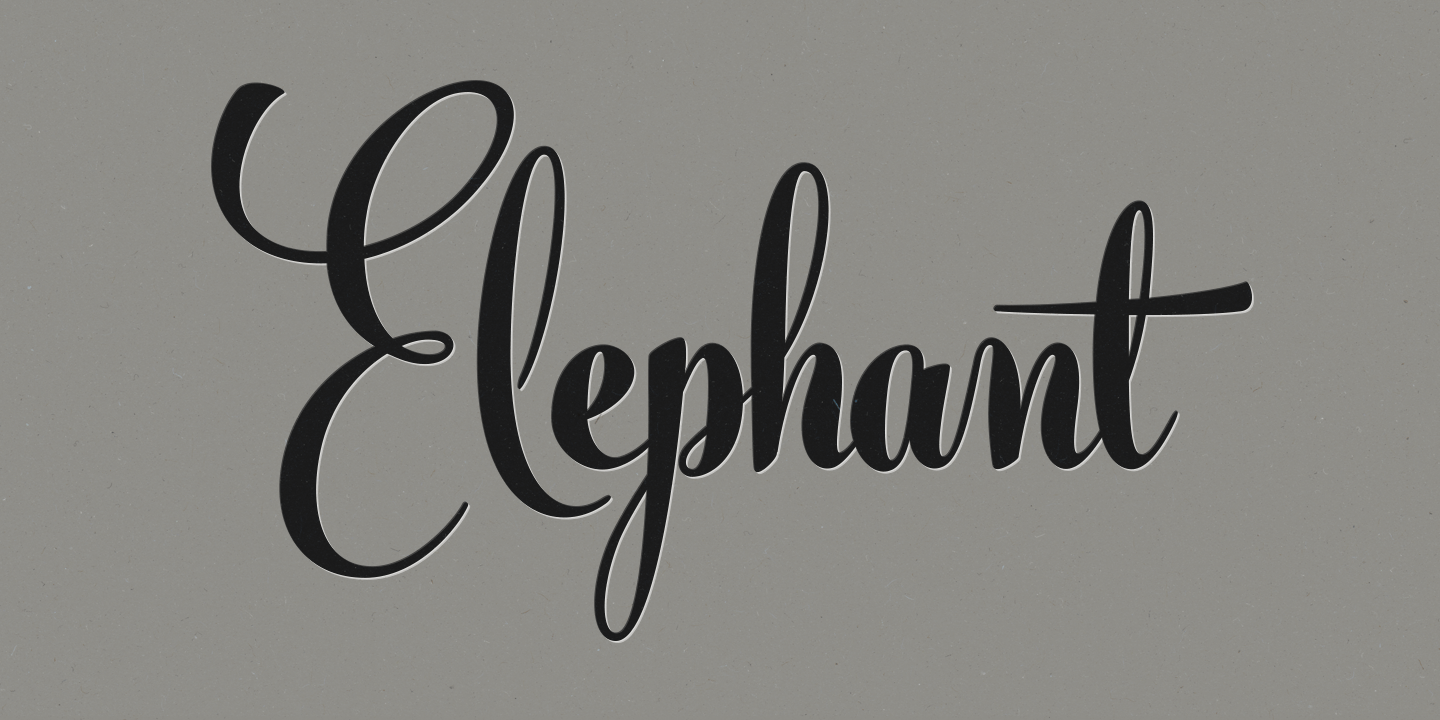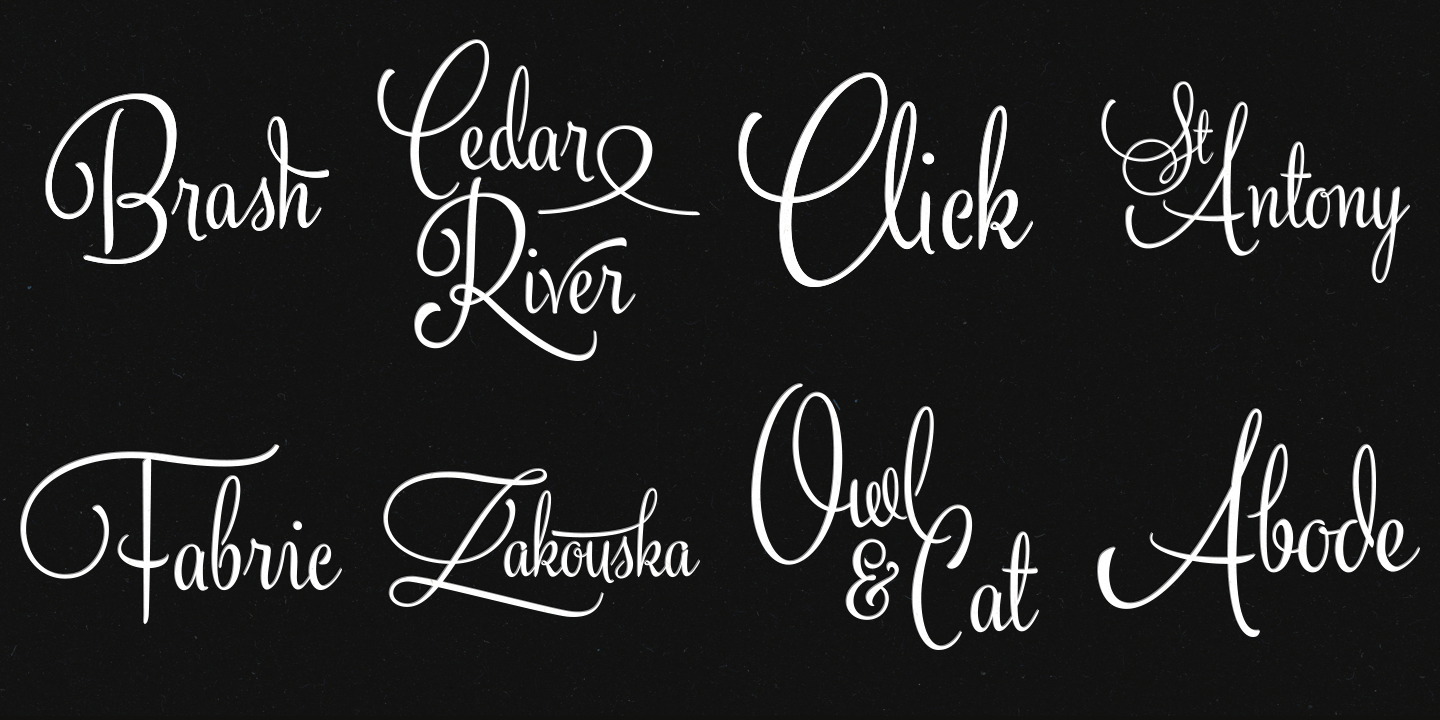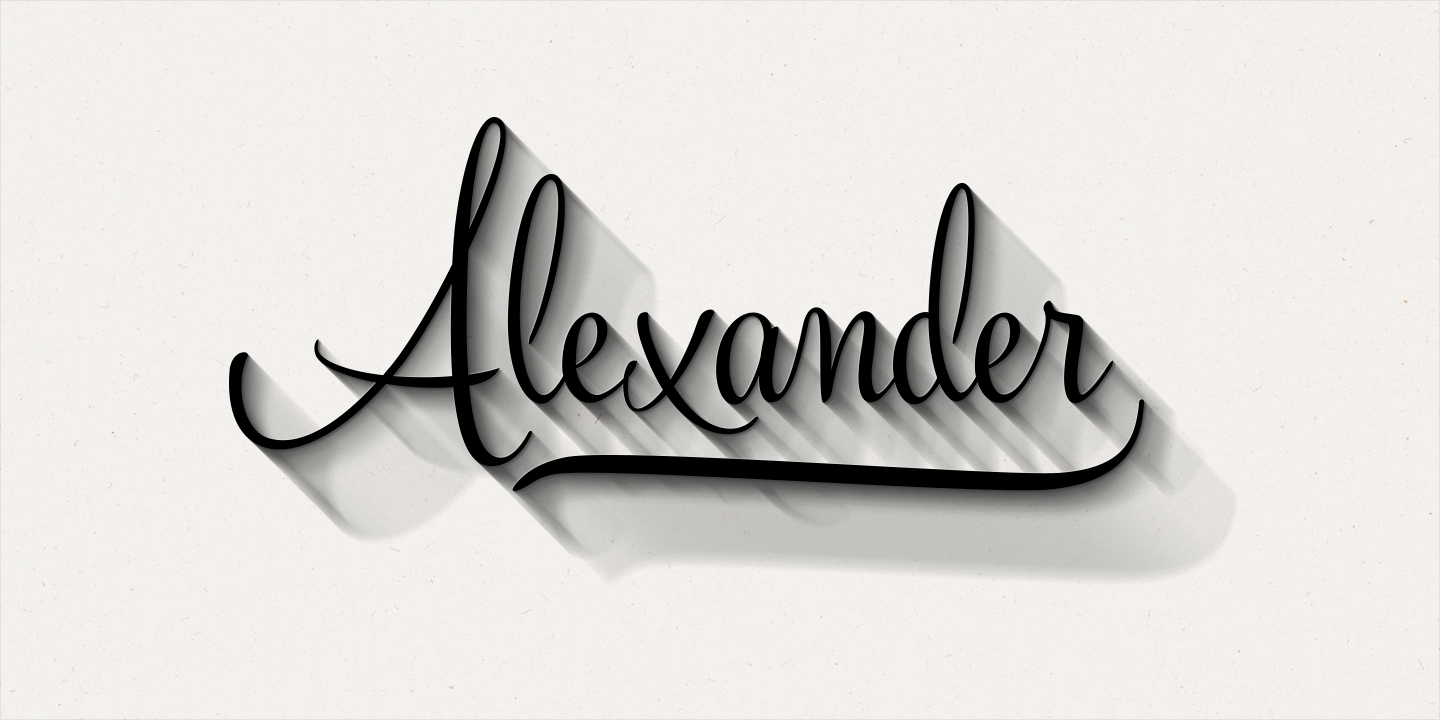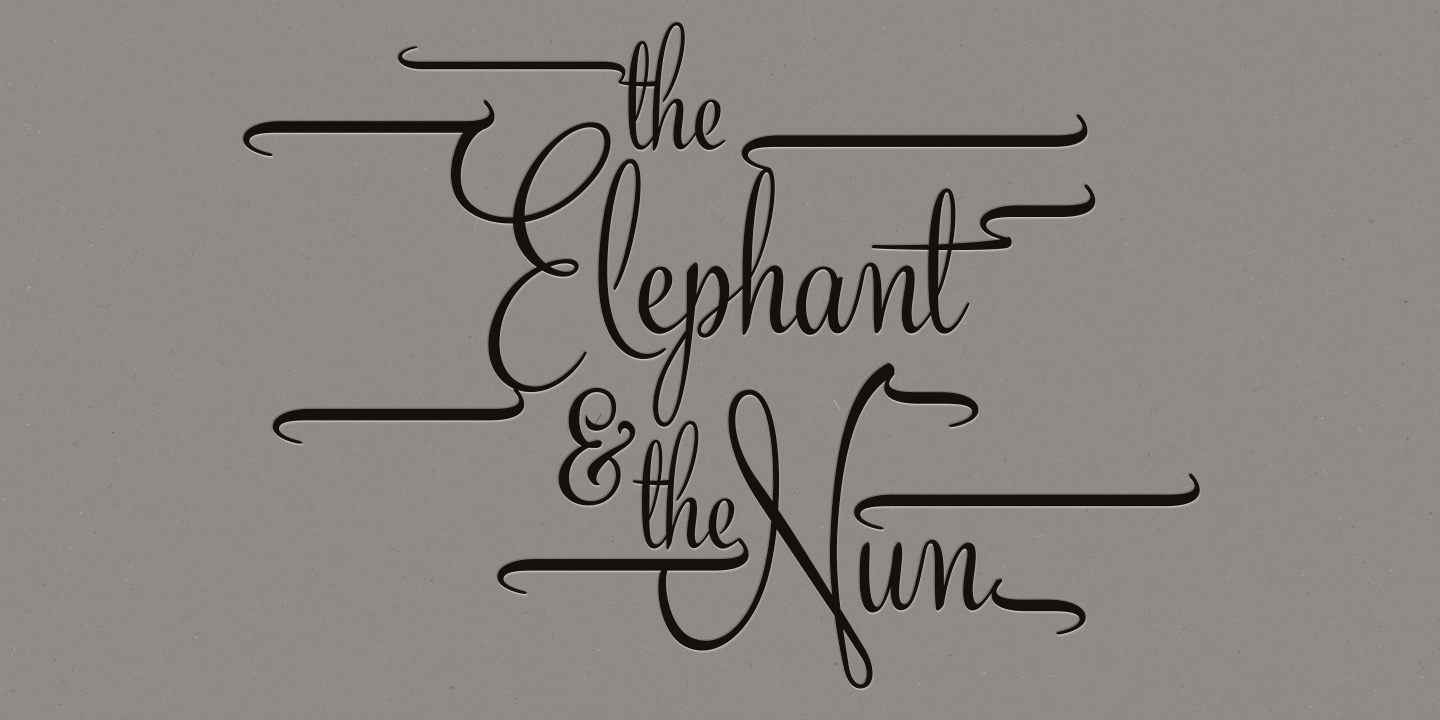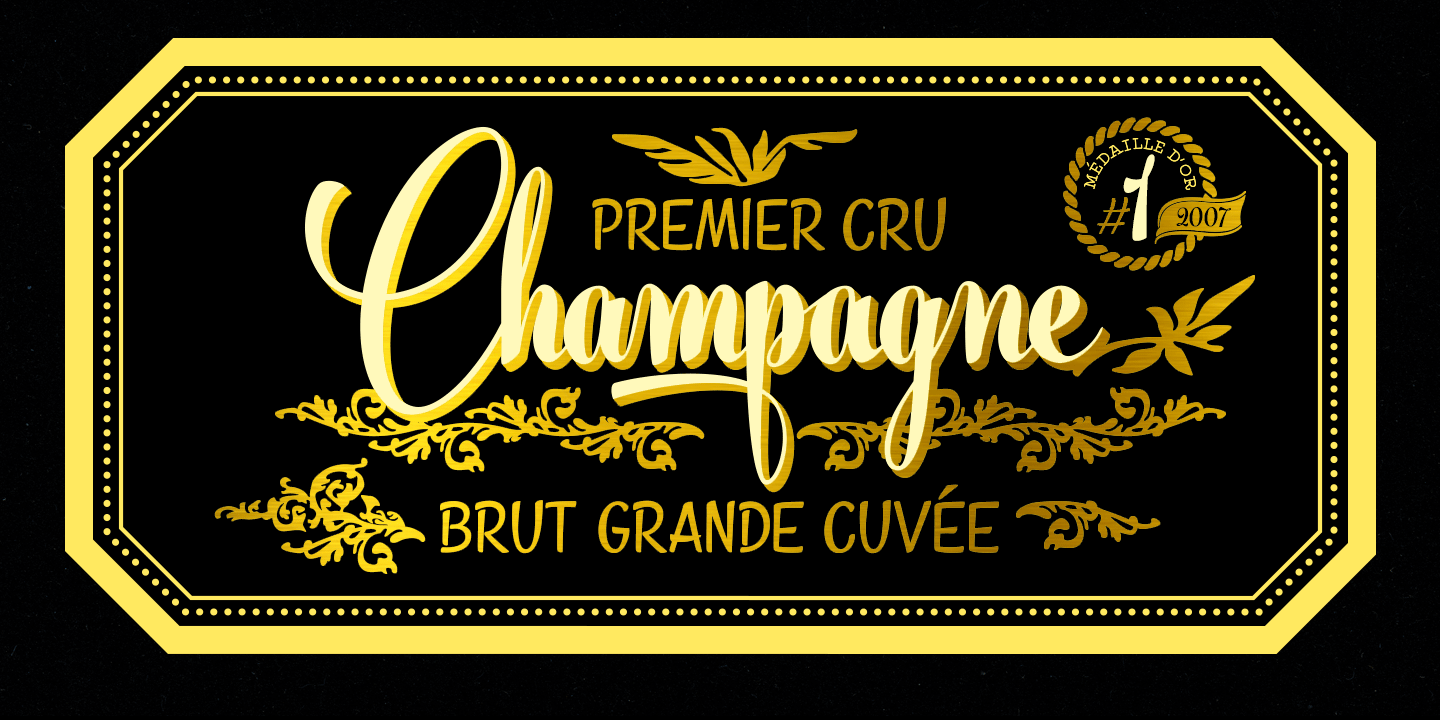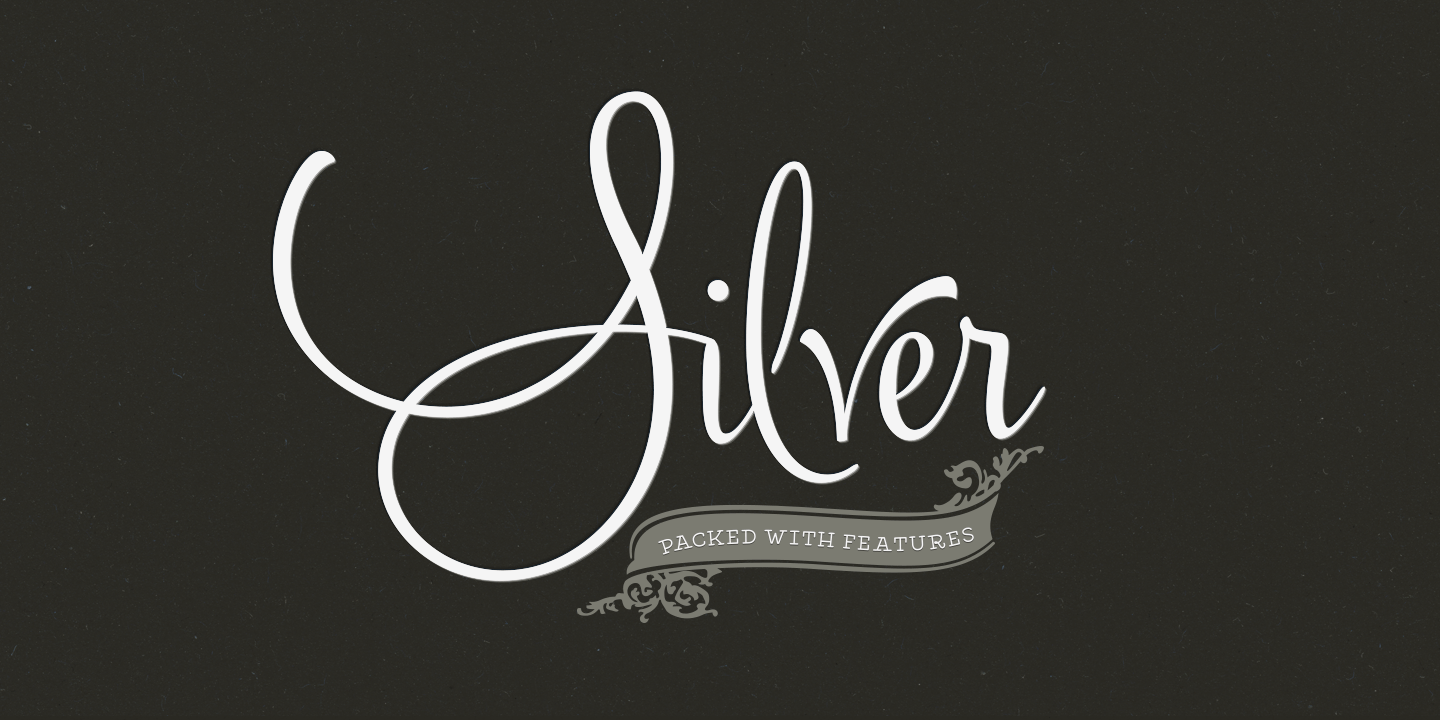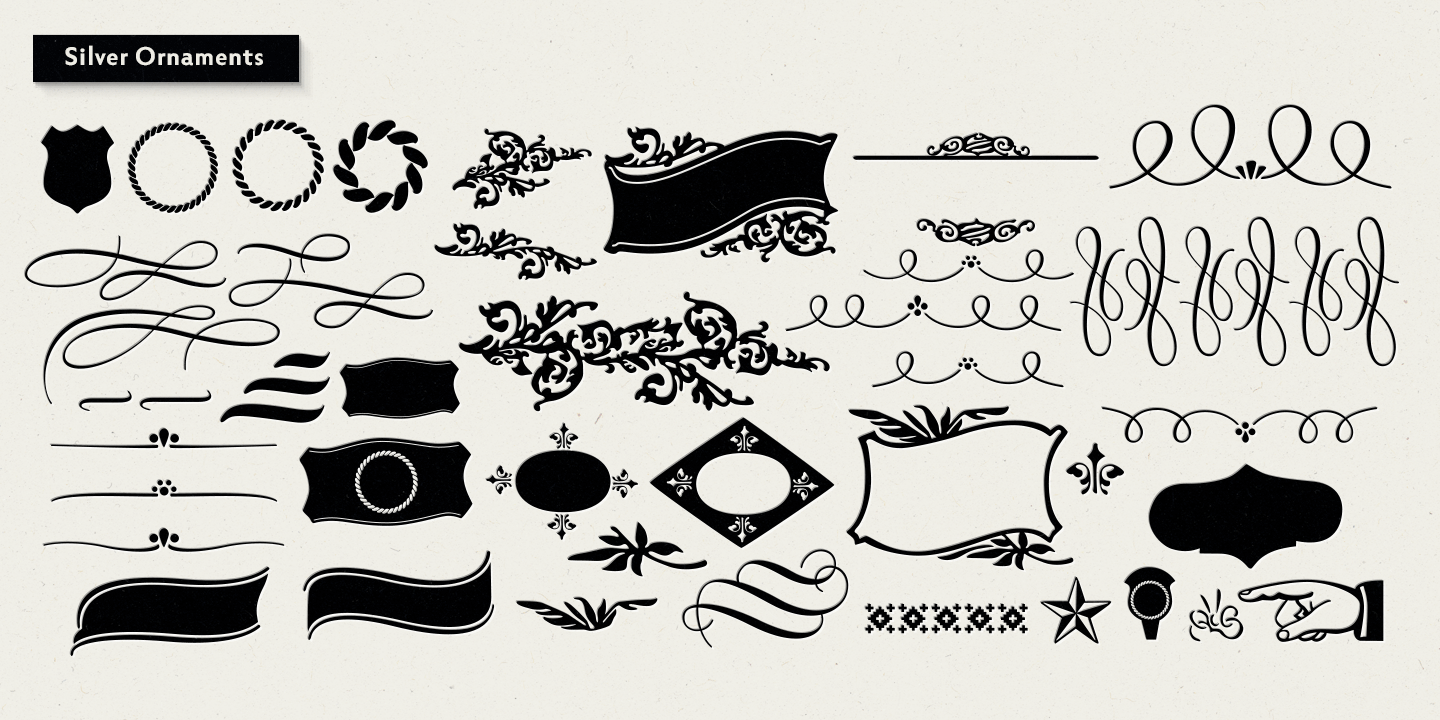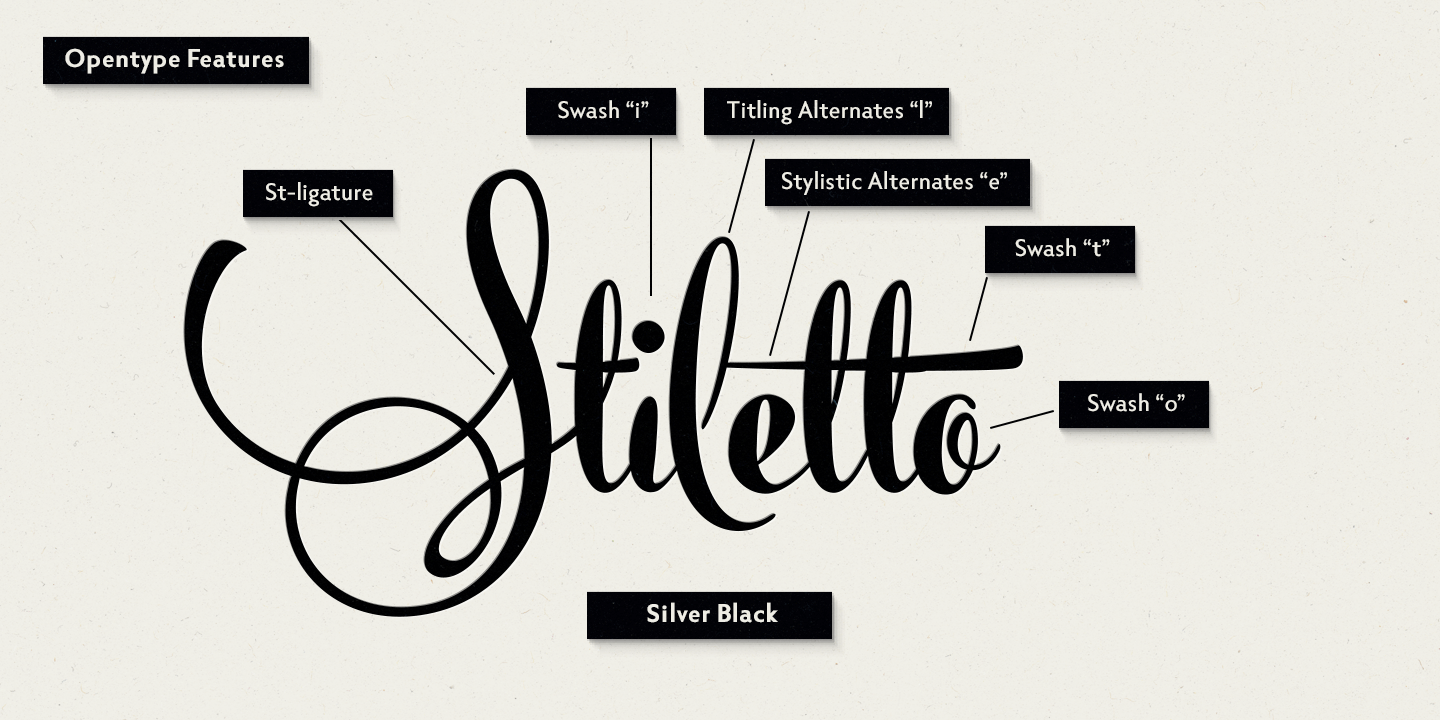
Silver Family (3 fonts)
Silver is best used on creating elegant headlines, logos & posters for packaging and branding purposes. Silver family has Regular and Black script fonts and an ornament set that is designed to support the typeface. For the best price purchase the whole family.